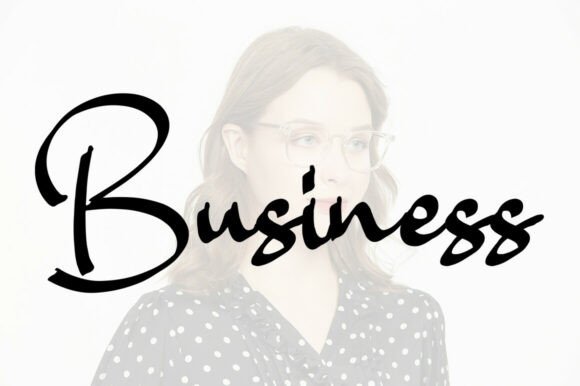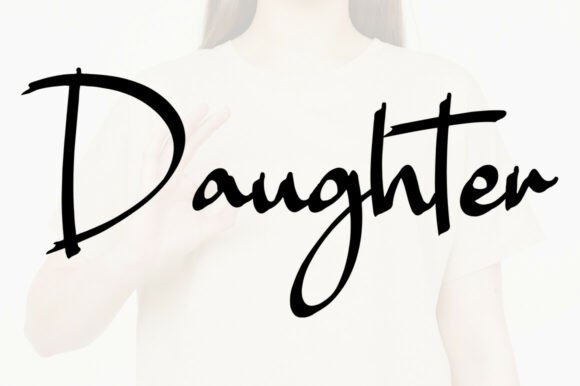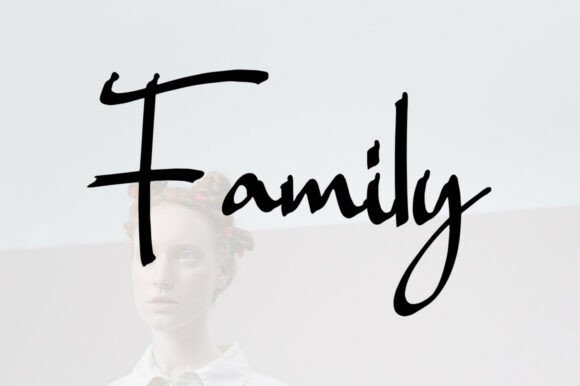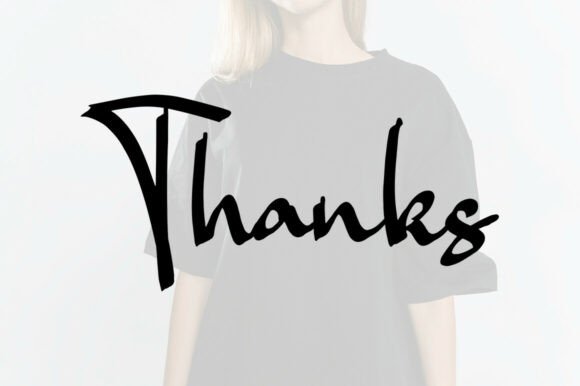
Introducing Blowing Font: Elevate Your Designs with Timeless Elegance
In the world of typography, a font can make or break the aesthetic of a design project. For designers and crafters seeking a touch of sophistication and classic elegance, the Blowing Font is an exceptional choice. This stylish handwritten font boasts a contemporary atmosphere, impeccable form, and a balanced, varied design that enhances the beauty of any project.
Inspired by Timeless Classic Calligraphy
The Blowing Font draws inspiration from the timeless classics of calligraphy, bringing a sense of tradition and refinement to modern designs. Its elegant strokes and fluid letterforms evoke a sense of luxury and sophistication, making it perfect for a wide range of applications, from branding and advertising to packaging and digital media.
Key Features of Blowing Font
- PUA Encoded: The Blowing Font is PUA (Private Use Area) encoded, allowing easy access to all glyphs and swashes. This feature makes it incredibly versatile and user-friendly, enabling designers to experiment with various styles and combinations.
- Balanced and Varied: The font’s balanced and varied design ensures that it can be used for both short and long texts, maintaining readability and visual appeal throughout.
- Contemporary Atmosphere: Despite being inspired by classic calligraphy, the Blowing Font has a distinctly contemporary feel, making it suitable for modern design projects that require a touch of elegance.
- Impeccable Form: Each letterform in the Blowing Font has been meticulously crafted to ensure that it is not only beautiful but also highly legible.
Use Cases for Blowing Font
The versatility of the Blowing Font makes it suitable for a wide range of design projects. Here are some use cases where this font truly shines:
- Branding and Logos: Create a lasting impression with a logo that exudes elegance and sophistication. The Blowing Font is perfect for crafting unique brand identities.
- Stationery and Packaging: Elevate your stationery, business cards, and packaging designs with a touch of classic luxury.
- Digital Media: Use the Blowing Font in digital media such as website headers, social media graphics, and email newsletters to add a level of refinement and professionalism.
- Advertising and Marketing: Stand out in advertising and marketing materials with a font that commands attention and conveys a sense of high-end quality.
Tips for Using Blowing Font Effectively
To get the most out of the Blowing Font, consider the following tips:
- Experiment with Swashes: Take advantage of the PUA encoding to experiment with different swashes and glyphs, adding a unique touch to your designs.
- Mix and Match: Don’t be afraid to combine the Blowing Font with other fonts to create a distinctive and visually appealing hierarchy of information.
- Adjust Letter Spacing: Fine-tune the letter spacing to ensure optimal readability and aesthetic appeal for your specific design.
The Blowing Font is a remarkable addition to any designer’s toolkit. Its blend of classic calligraphy inspiration, contemporary atmosphere, and impeccable form makes it an ideal choice for projects that demand elegance and sophistication. With its PUA encoding, balanced design, and versatility, the Blowing Font is poised to elevate your designs to new heights. Whether you’re working on branding, digital media, or packaging, this stylish handwritten font is sure to leave a lasting impression.